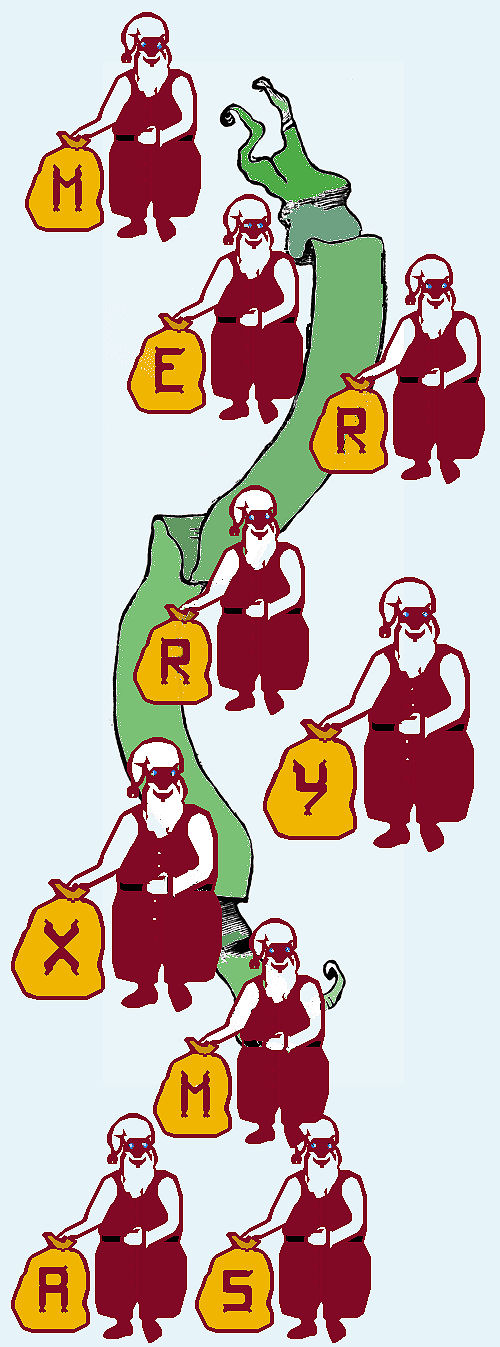
• Clauses bring bags of goodies to you. On LC you find numbers for an advent calendar. The UC Clauses give UC letters. Clauses on numerals look into a different direction and offer numbers 0-9. There are also exclamation and question marks, an opened and closed empty bag, and 5 decorated ones.
Enjoy ... Happy Celebrations to you!
Have a great Yule/Christmas!
Letters are on UC. Numbers 1-25 for an 'advent calendar' on LC. Claus looking in a different direction holds numbers 0-9, two blank and 5 decorated bags.
Ho, ho, ho!!! I love your seasonal and holiday designs.
@Aeolien - Congratulations on such an intricate design of Mr. Kris Kringle !
Great! Love it, even if it's not december yet :) 10/10
@ p2p, Goatmeal and Noah: thank you :) I loved making these funny Claus characters. Noah, the font is available early so people can send greetings for St.Nicholas day on December 6th ;)